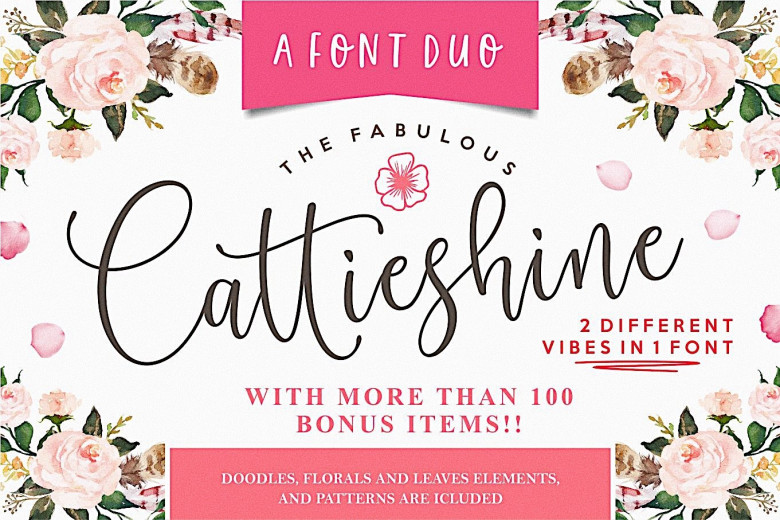
Cattieshine Script Font
This is a modern calligraphy typeface, a modern script font, elegant line of calligraphy that makes this font perfect for your personal brand image and every great project. Introducing Cattieshine Font Duo. Cattieshine a font duo that can make tons of design style. The Cattieshine Alt combines with Cattieshine Sans will make perfect design for packaging, quotes, branding, gift cards, posters, even fun logos. Another Cattieshine has different emotion, it’s sweet and lovely. it would be perfect for feminine, elegant, and luxurious logos, branding, wedding invites and cards.